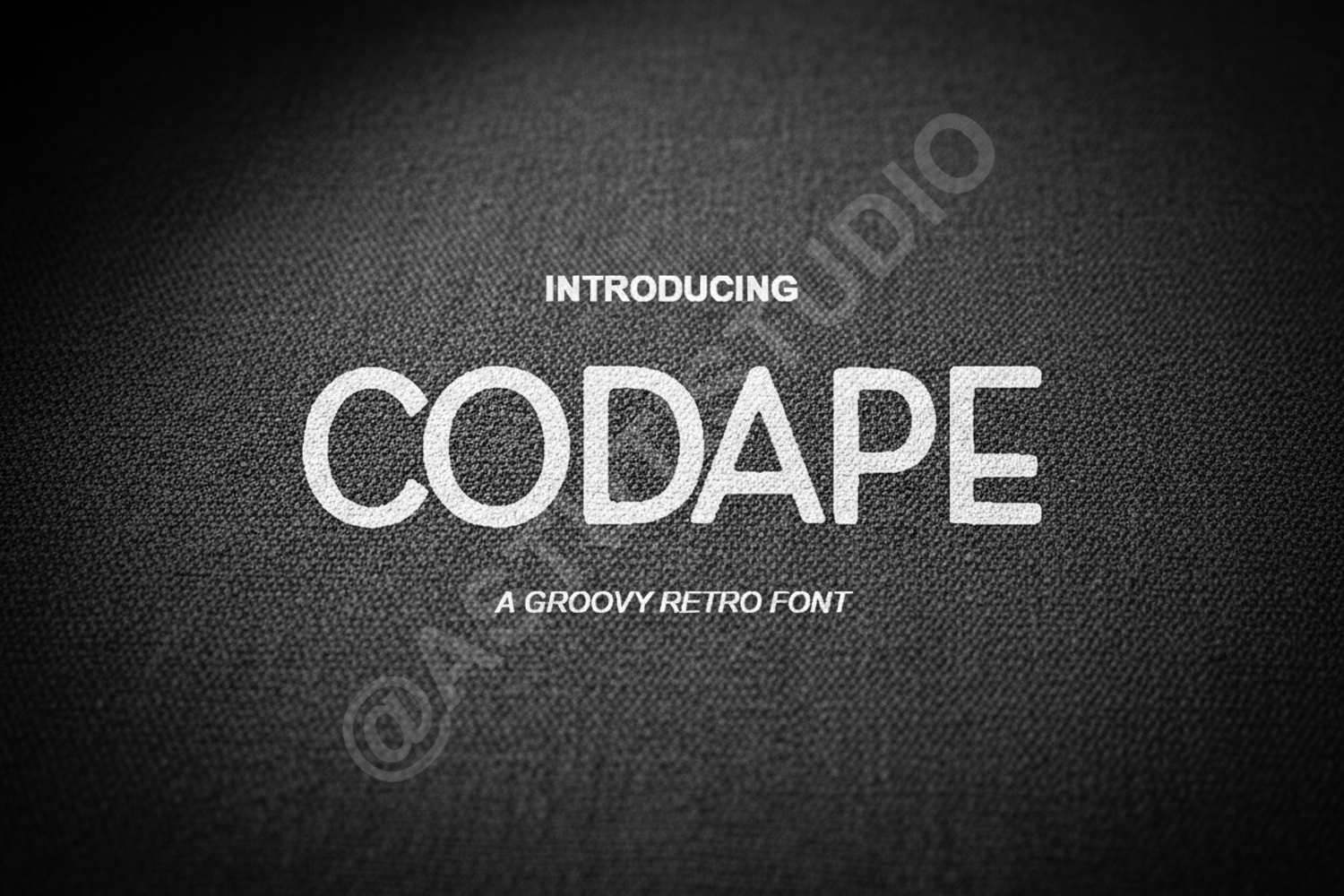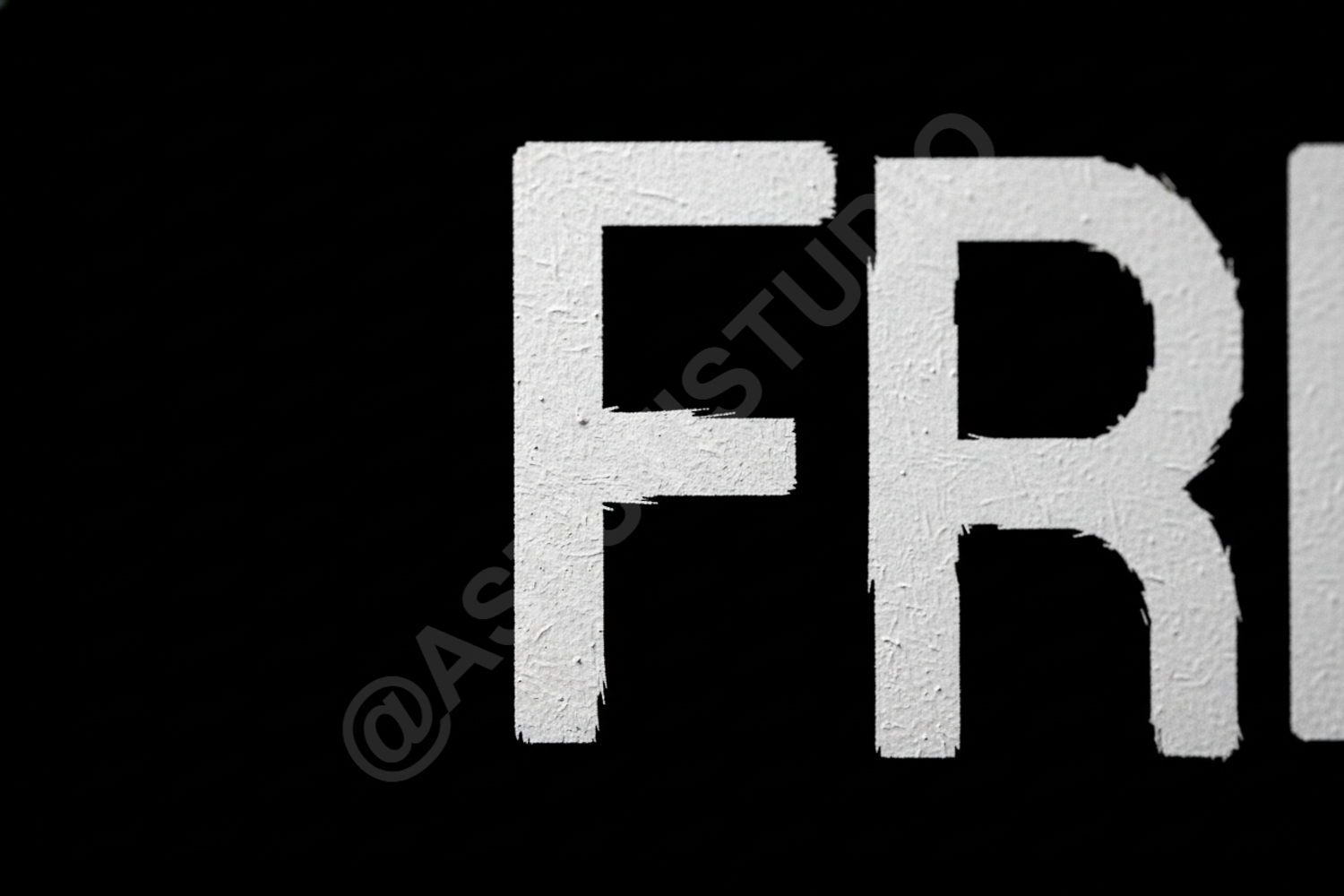
Codape - Modern Geometric Sans Serif Typeface
Codape
Codape is a premium geometric sans-serif font meticulously crafted for clarity and modern aesthetics. With its clean lines and perfectly balanced proportions, Codape provides a professional touch to any creative project, ensuring your message is delivered with both precision and high-end style. It is designed to remain highly legible across various sizes, making it a versatile staple for any designer's toolkit.
- Corporate Branding and Identity Systems
- Modern Website Headers and User Interface Design
- Minimalist Editorial Layouts and Magazine Spreads
- Sleek Product Packaging and Labeling
- Professional Presentations and Business Pitch Decks
- Social Media Graphics and Digital Marketing Assets